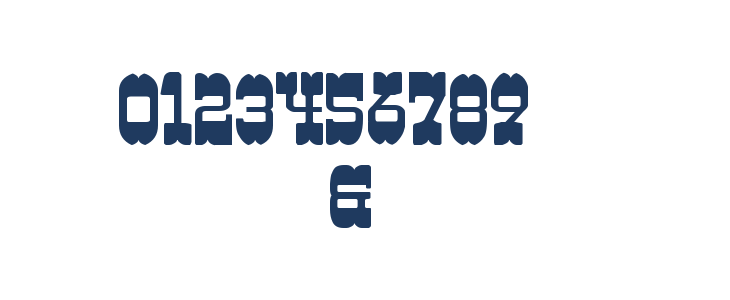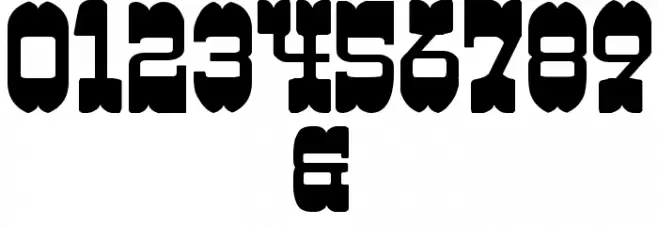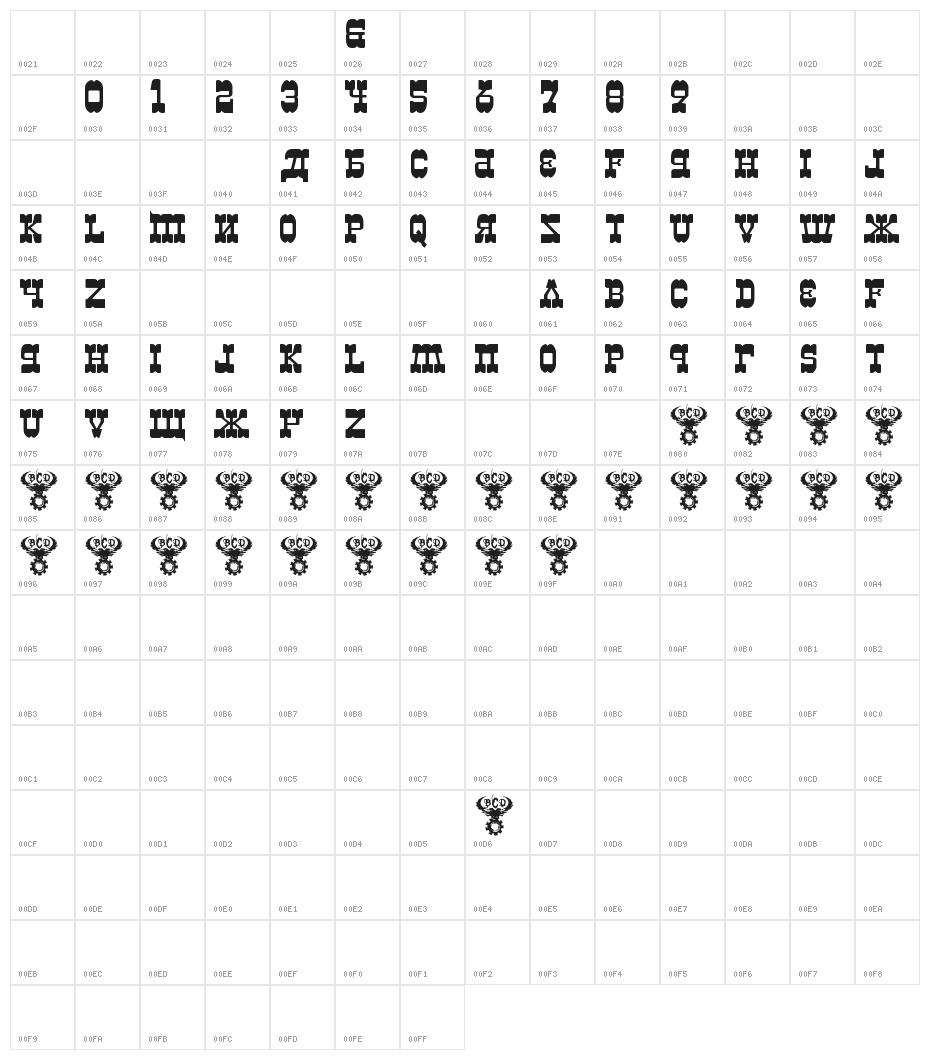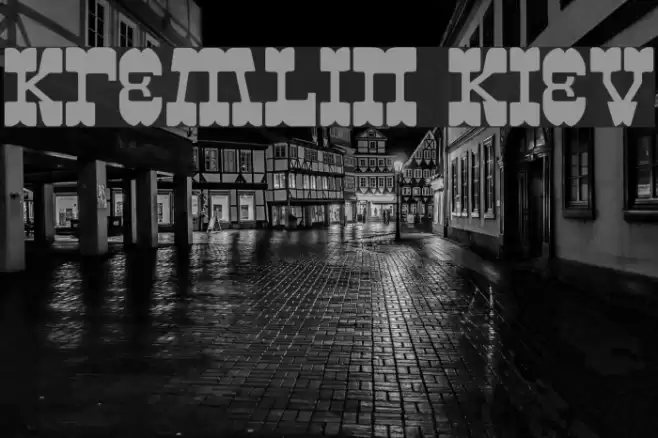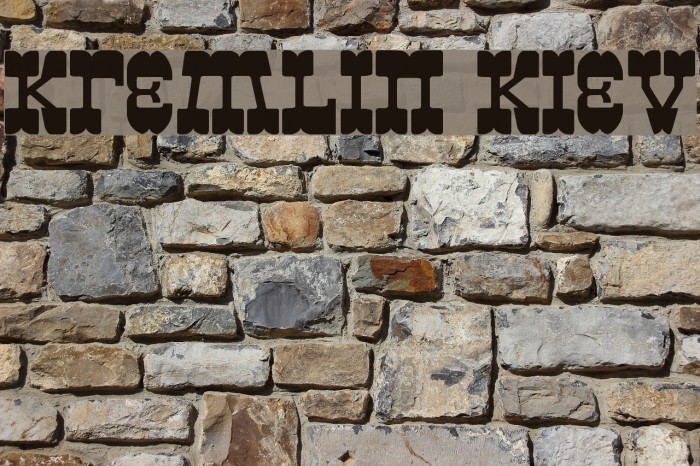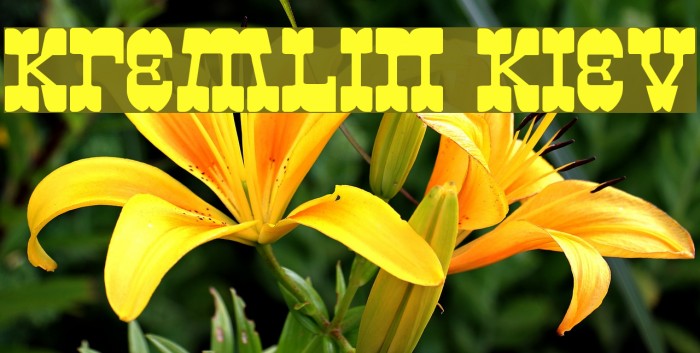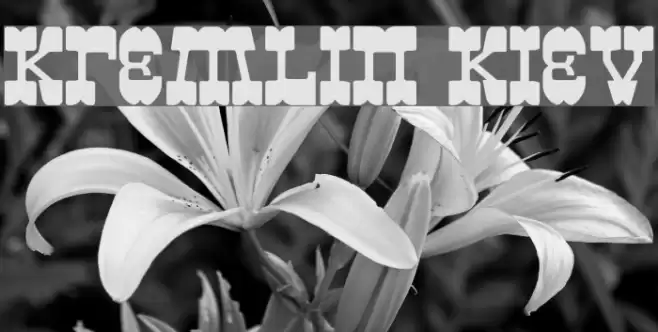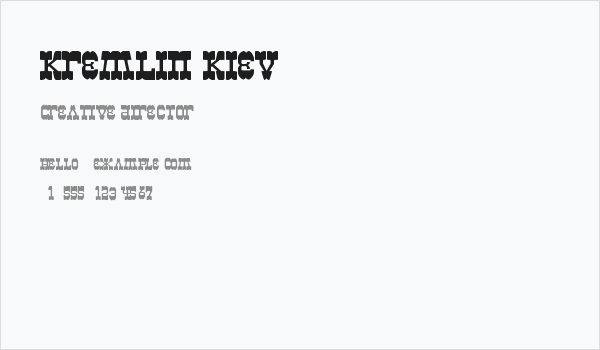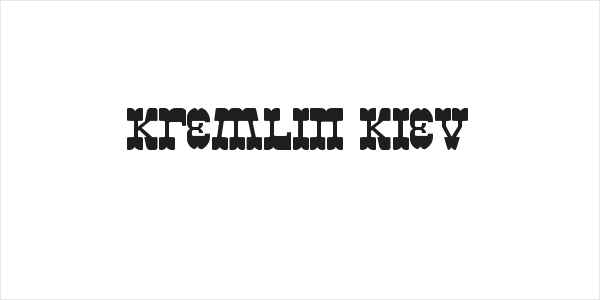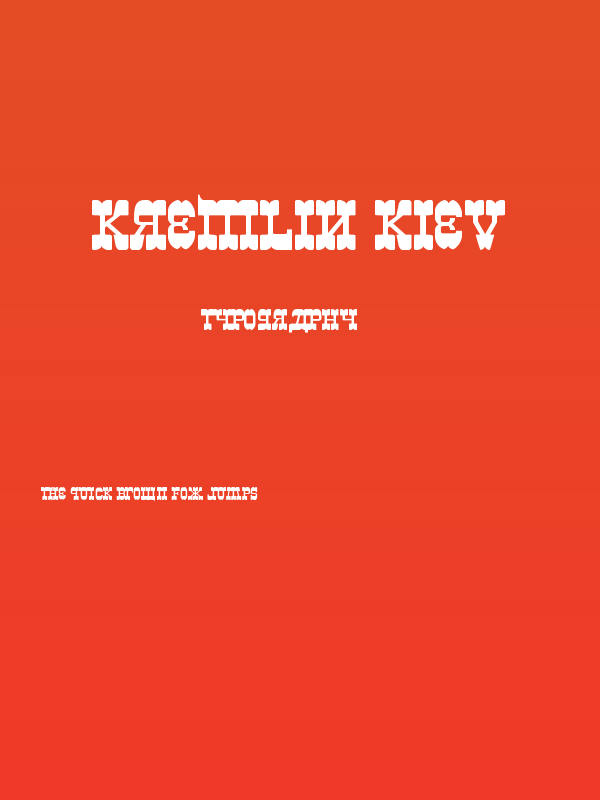
Kremlin Kiev Font
Kremlin Kiev Description
This font exhibits a bold and striking design, characterized by its heavy weight and unique geometric shapes. The letters are crafted with a strong presence, featuring thick strokes and angular edges that give it a distinctive and powerful appearance. The uppercase and lowercase letters maintain a consistent style, with the uppercase being particularly prominent. The numbers and special characters are equally bold, ensuring uniformity across all glyphs. This font's design is reminiscent of traditional Slavic or Eastern European styles, making it ideal for projects that require a cultural or historical touch.
| Overall Style | Traditional, Decorative |
| Proposed Projects | Ideal for cultural posters, historical event flyers, branding for Eastern European products, or any project needing a bold, traditional aesthetic. |